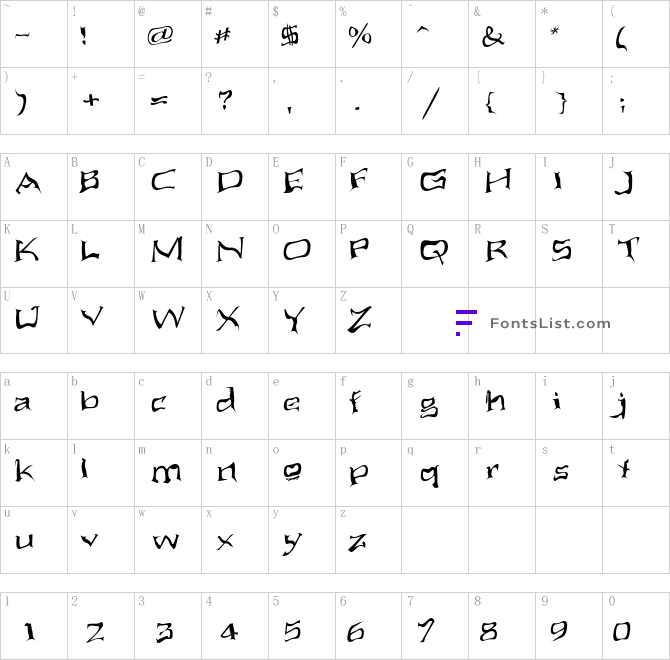
- Font Name:Aliens ate my mum
Aliens-ate-my-mum-copy-2-.ttf is a very beautiful artistic font, Aliens-ate-my-mum-copy-2-.ttf is widely used in the design and printing of various books and pictures,Aliens-ate-my-mum-copy-2-.ttf has a strong visual impact,Aliens-ate-my-mum-copy-2-.ttf is a commonly used font in newspapers, magazines and books, and is used in posters, e-commerce Poster design, store design, logo design, font design and other fields.Aliens-ate-my-mum-copy-2-.